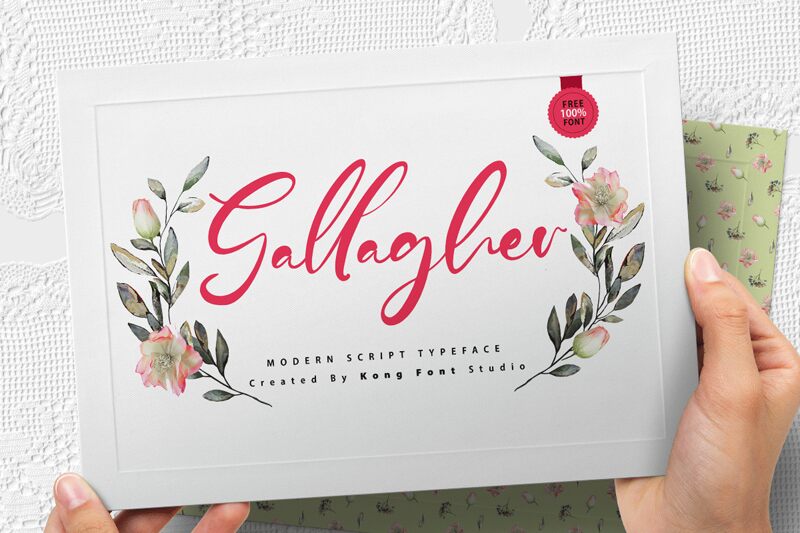
Gallagher
Gallagher, the modern script font designed by Kong Font is the perfect blend of elegance and creativity. Its semi-light weight gives it a delicate touch that can be used for various projects such as wedding invitations, branding designs, or even social media graphics. The fluid strokes and curves of Gallagher add a touch of sophistication to any text while still maintaining its legibility. This font typeface is versatile enough to be used in both digital and print formats, making it an ideal choice for designers looking for something fresh and unique. Bring your designs to life with Gallagher – the modern script font that's sure to leave a lasting impression!